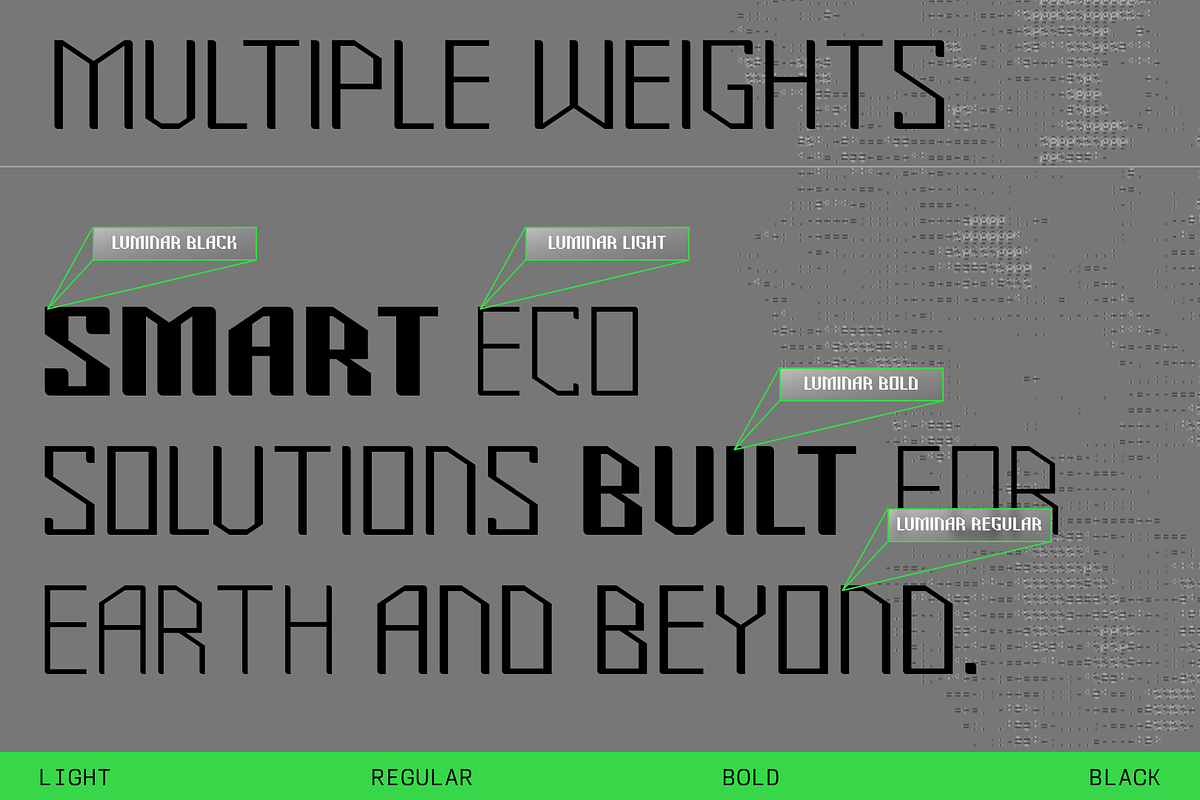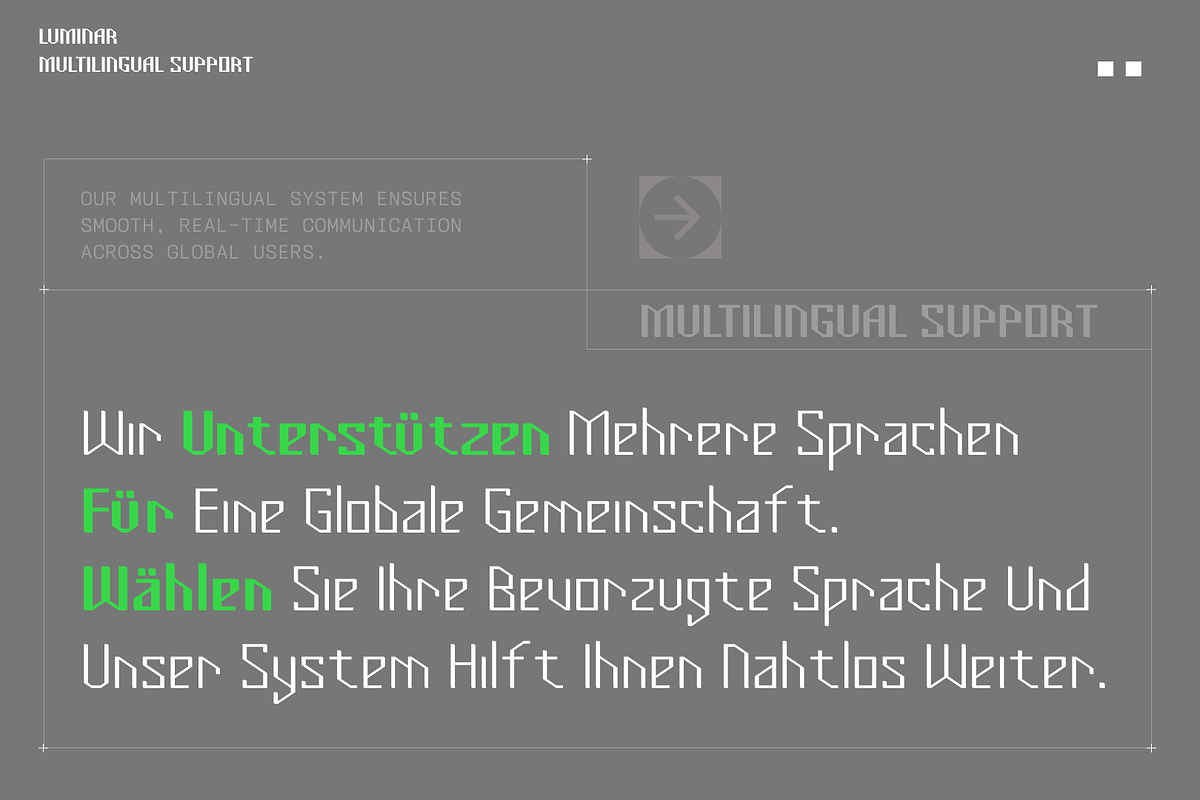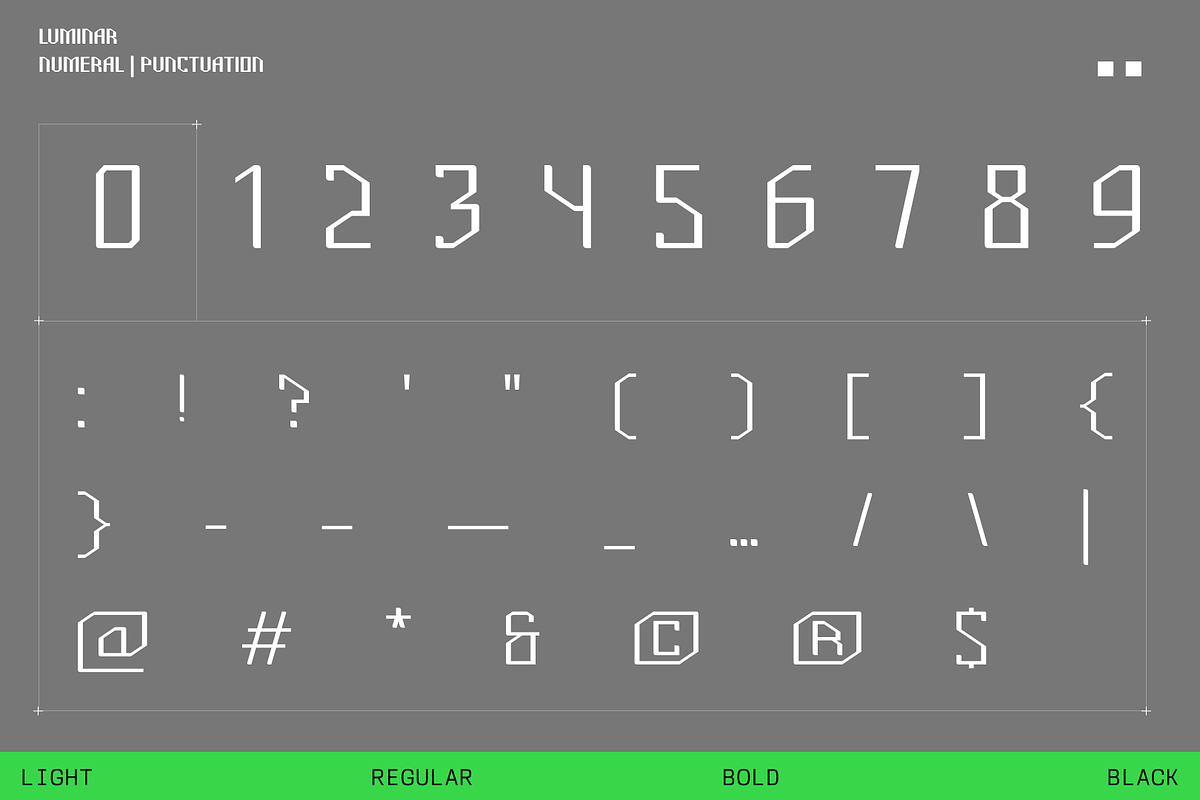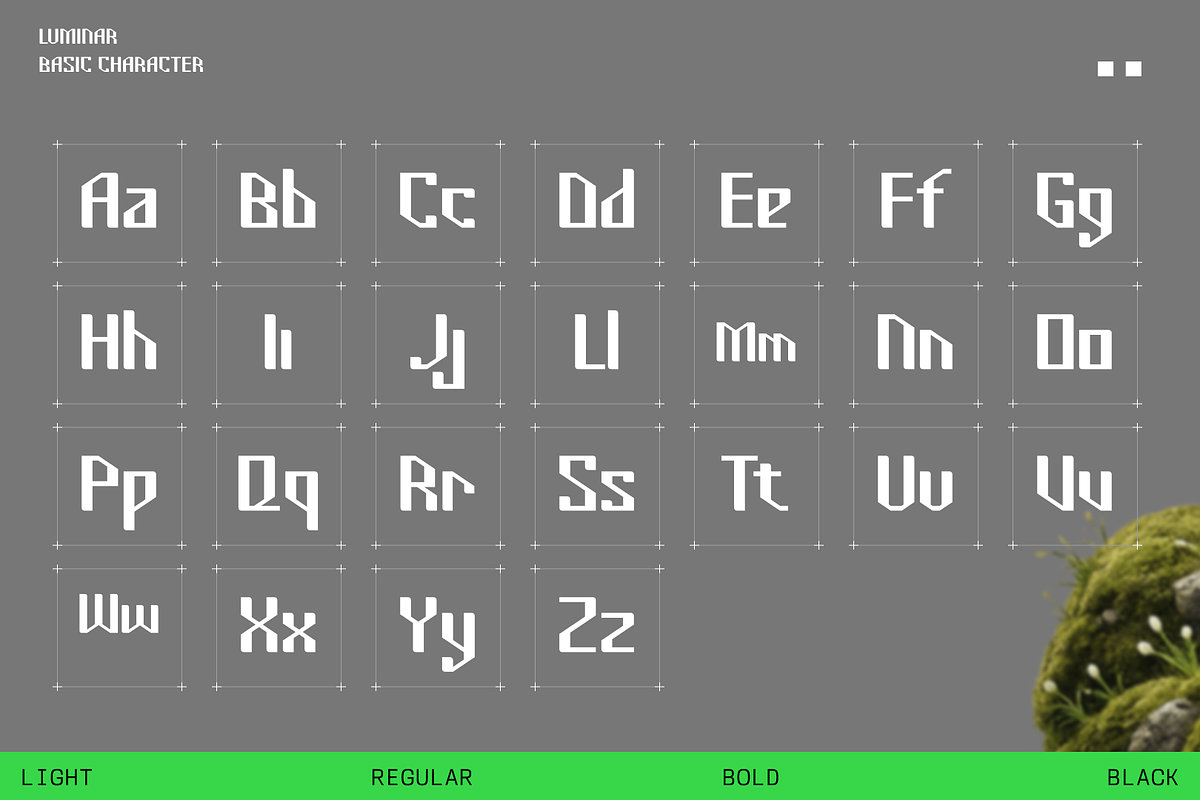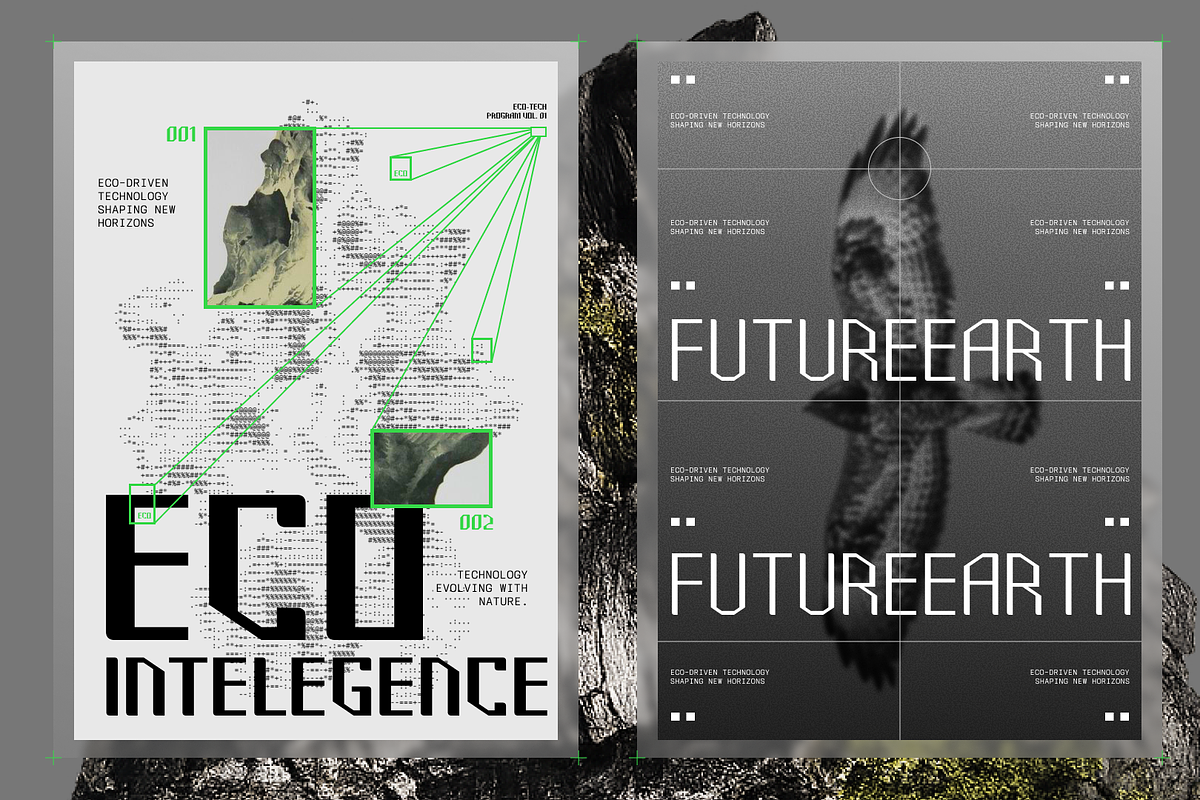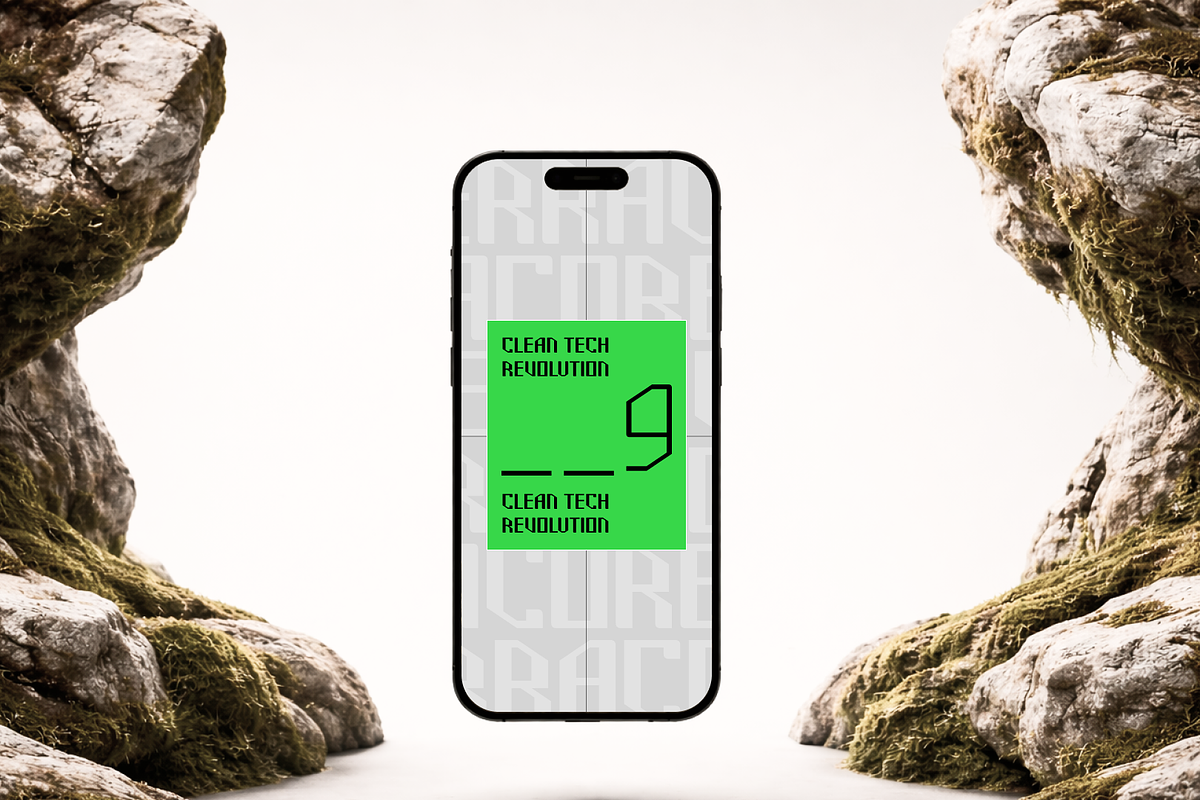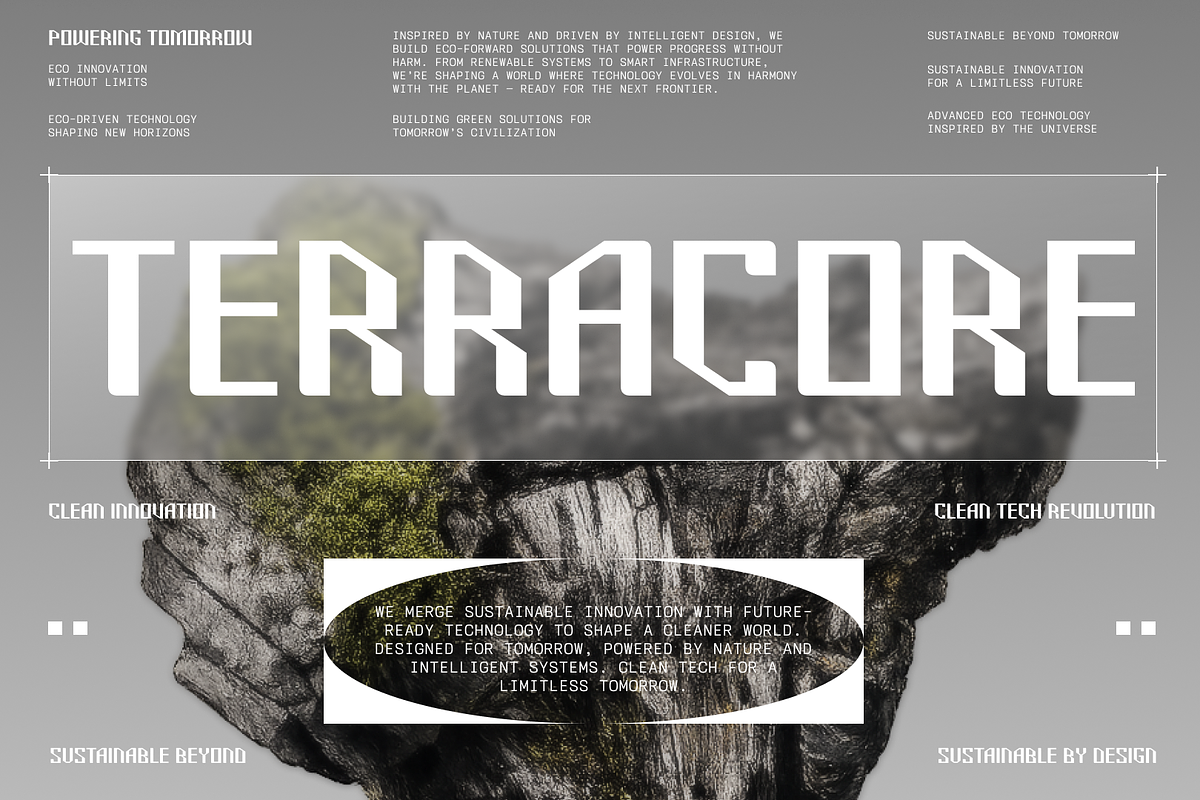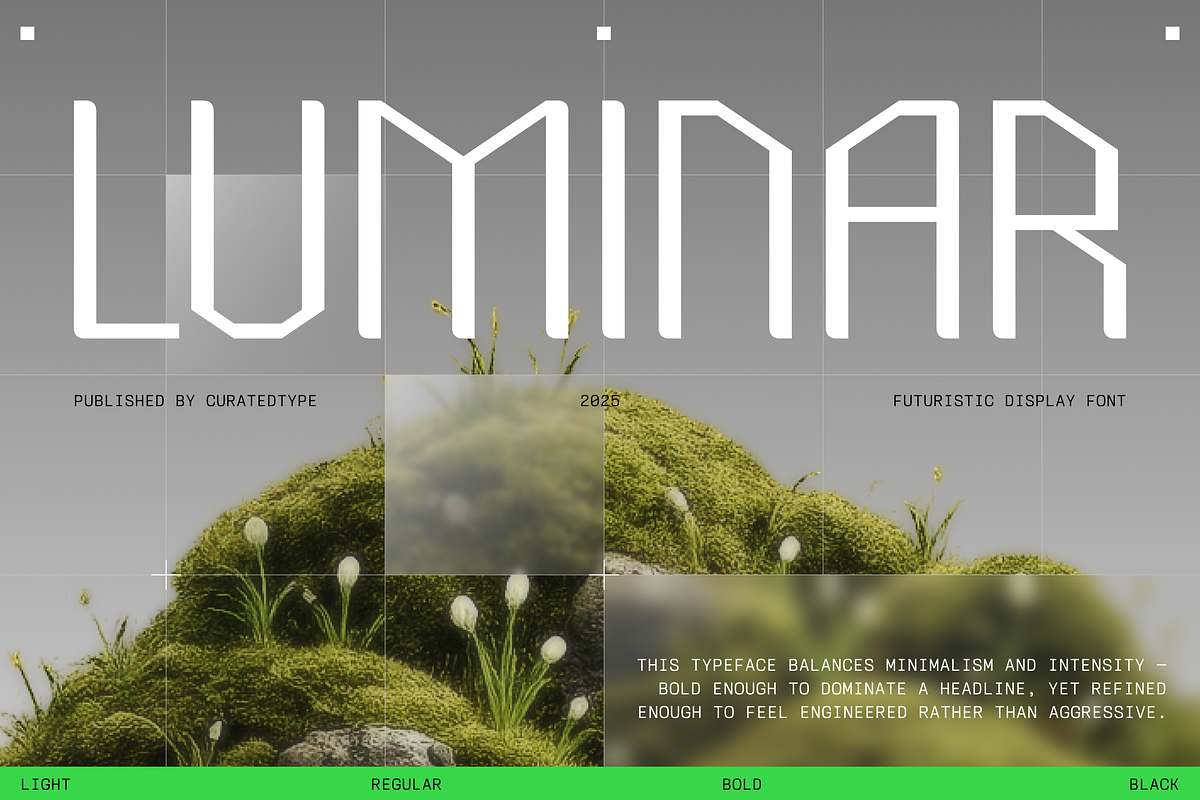
Luminar - Futuristic Font
Meet Luminar: The Typeface Built for Impact. Luminar is a font that refuses to be ignored. With its bold, blocky structure and sharp, angled edges, this typeface bridges the gap between retro-industrial machinery and modern sci-fi aesthetics. It projects an image of strength, durability, and technological advancement, making it the perfect choice for designs that need to look sturdy and undeniably powerful. If your visual language speaks of hardware, speed, or the future, Luminar is the voice you need.
Versatility for the Digital Age. Whether you are branding an aggressive e-sports team, designing the HUD for a video game, or creating high-octane posters for automotive events, Luminar delivers the necessary punch. Despite its heavy geometric styling, the character distinction remains high, ensuring your headlines are readable even at a glance. It includes a full set of uppercase and lowercase letters, numerals, and punctuation, ready to serve as the backbone of your next heavy-duty project.